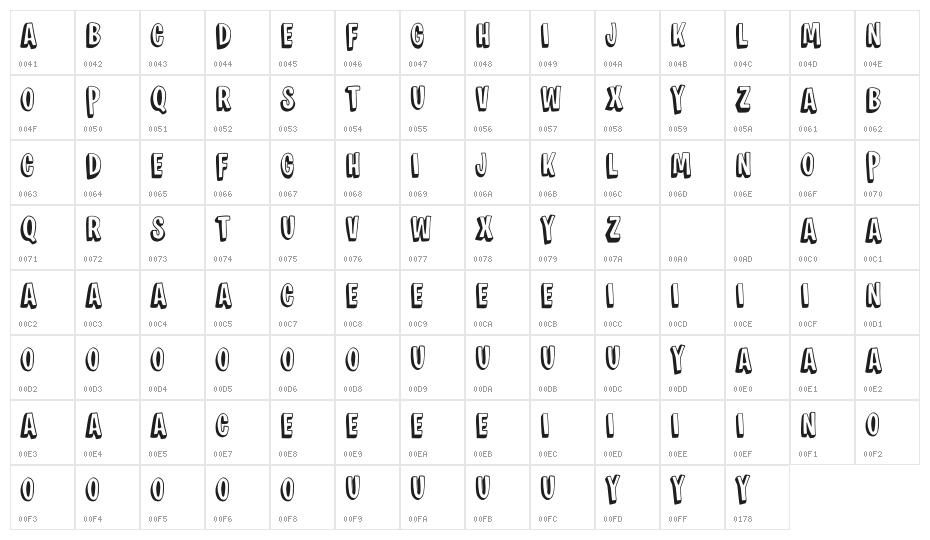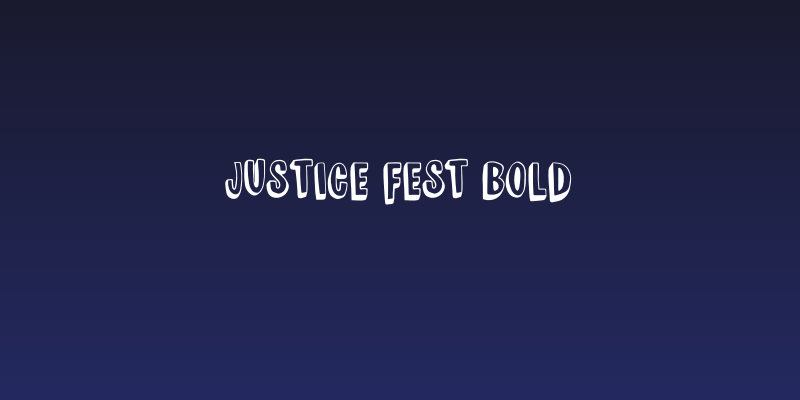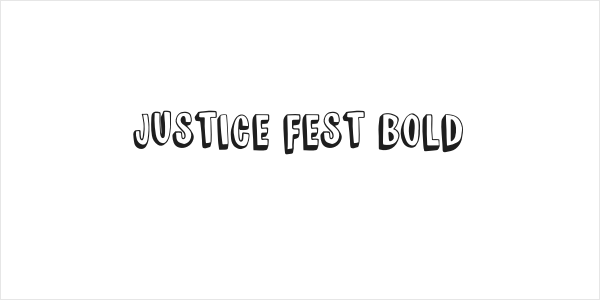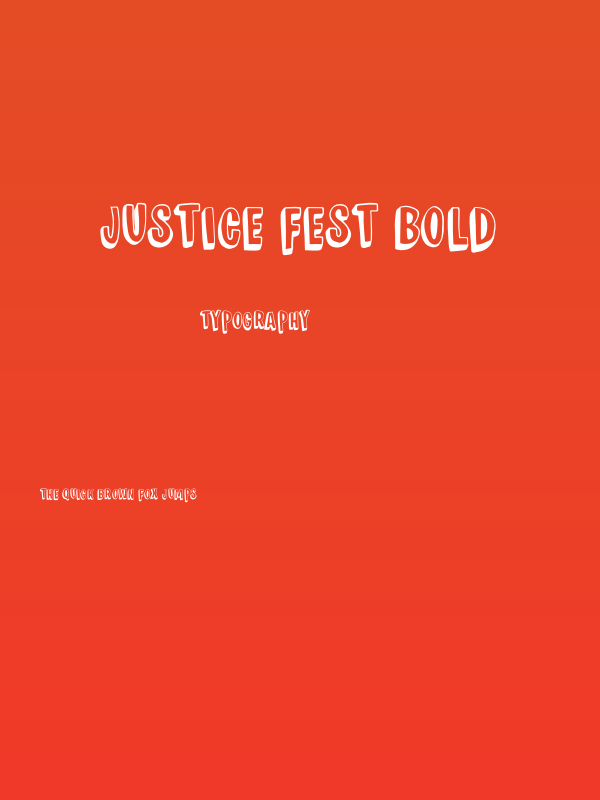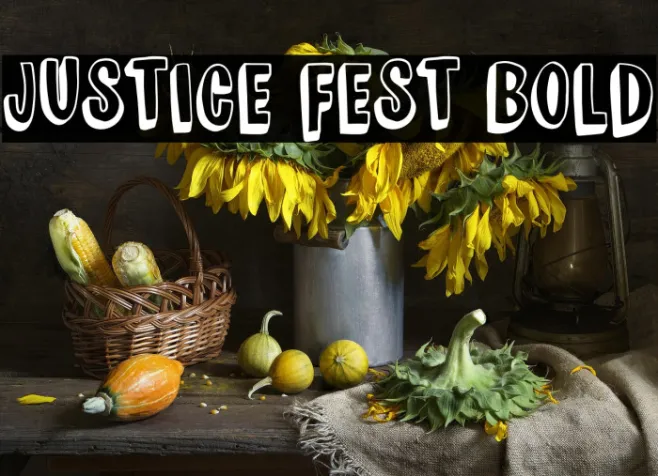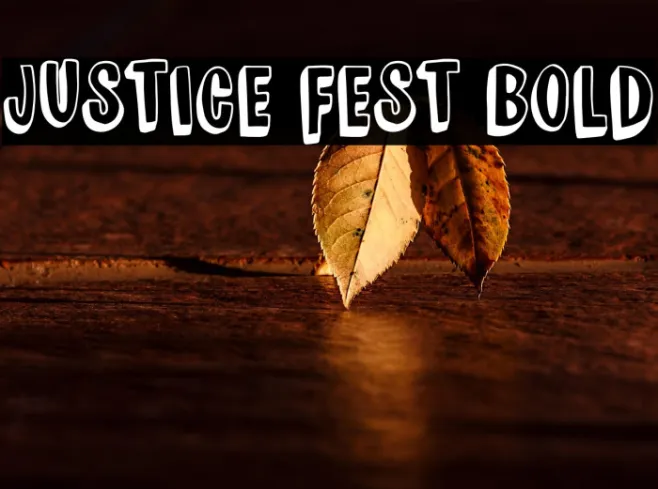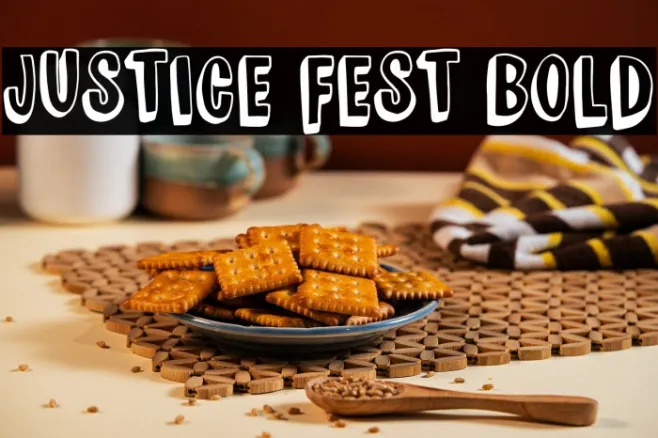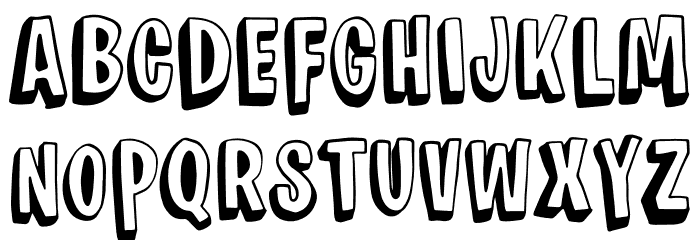
JUSTICE FEST Bold Font
JUSTICE FEST Bold Description
This font features bold, playful characters with a thick outline that gives a three-dimensional effect. The letters are uppercase and have a cartoonish, energetic style, making them highly suitable for attention-grabbing designs. Each character is distinct, with a slight slant and varying stroke widths that add a dynamic feel. The font's boldness and unique style make it ideal for projects that require a fun and lively appearance. The absence of lowercase letters and special characters suggests a focus on simplicity and impact.
| Overall Style | Playful, Energetic, Cartoonish |
| Use Case | Headlines, Posters, Branding |
| Proposed Projects | Ideal for posters, children's book covers, comic titles, and playful branding. |